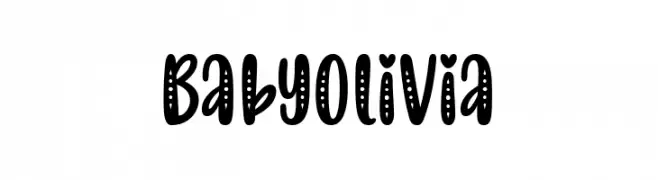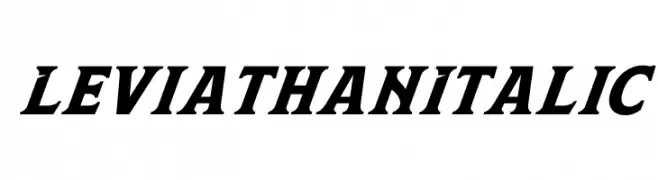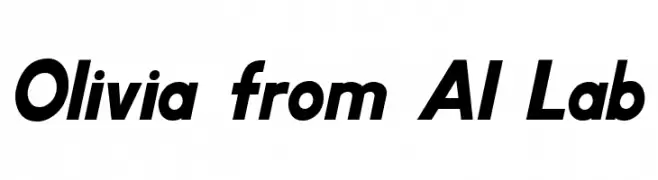
A playful, bold font with rounded edges and a whimsical style.
A bold, decorative font with sharp angles and geometric shapes, ideal for striking designs.
A bold, rounded font with a playful and retro vibe.
A futuristic, geometric font with sharp angles and bold presence.
A futuristic, geometric font with rounded edges and bold strokes.
A futuristic, geometric font with bold, angular lines.
A playful, interconnected font with rounded strokes and a modern, whimsical style.
A playful, rounded font with a modern and friendly design.
An artistic, edgy font with sharp, thorn-like detailing.
A bold, geometric font with a futuristic and industrial style.
A bold, geometric font with a futuristic, digital aesthetic.
A bold, playful font with rounded edges and a geometric, modern style.
A modern, geometric font with consistent stroke width and clean design.
A bold, futuristic font with sharp, angular edges and a tech-inspired design.
A bold, modern geometric font ideal for impactful headlines and branding.
A bold, modern font with rounded edges and a playful aesthetic.
A playful, rounded font with a whimsical and bold design.
A bold, geometric font with thick strokes and a modern, angular design.
A modern, minimalist font with thin lines and rounded edges.
A playful, looping font with bold, rounded terminals and smooth curves.
A playful, bubbly font with rounded, cartoonish letterforms.